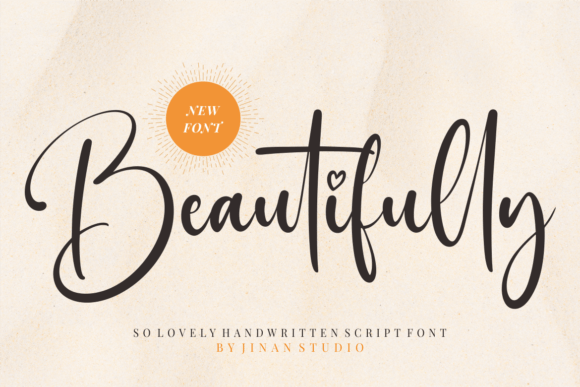
Introducing Beautifully Font - the perfect choice for anyone looking for the best fonts for pen Cricut! This elegant script font, created by jinanstd, is sure to capture your heart with its lovely, stylish, and greatly detailed handwritten design.
With Beautifully Font, you can add a romantic touch to your Valentine's theme designs, wedding invitations, photography, and logos. This font will help you create designs that are sure to leave a lasting impression on anyone who sees them.
The details in this font are truly remarkable, and you'll love how they add a unique and personal touch to your work. Beautifully Font is also incredibly versatile, making it an excellent choice for a wide range of projects.
Whether you're a professional designer or just starting out, Beautifully Font is a must-have in your collection. It's easy to use and will quickly become one of your go-to fonts for any project.